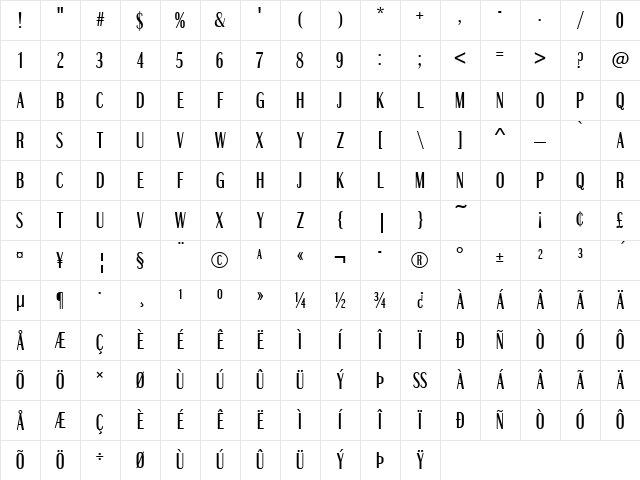
Britannic Becker Compress Med Regular
Design Context for Britannic Becker Compress Med
Britannic Becker Compress Med is a composed and adaptable typeface that performs quietly and consistently across a wide range of design contexts.
Pro Tip: Use Britannic Becker Compress Med in both headline and body roles to test its range before committing to a single application.